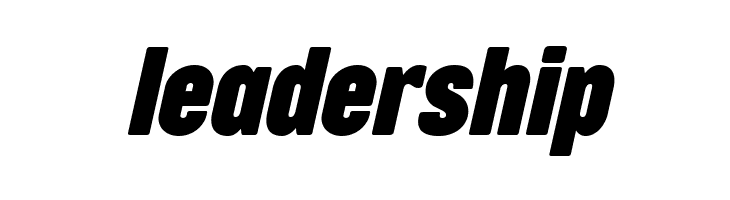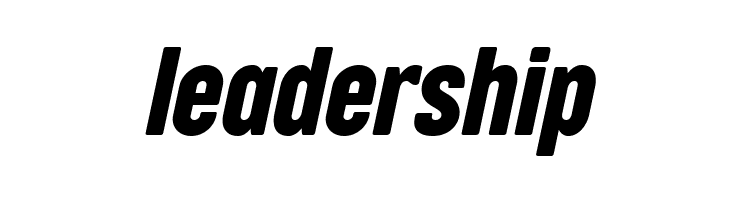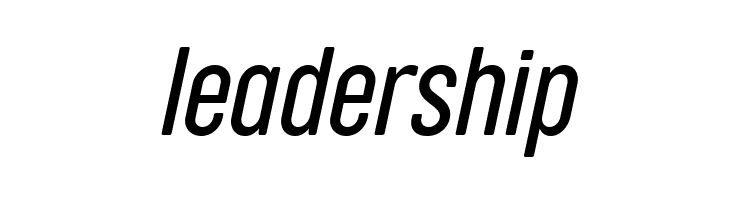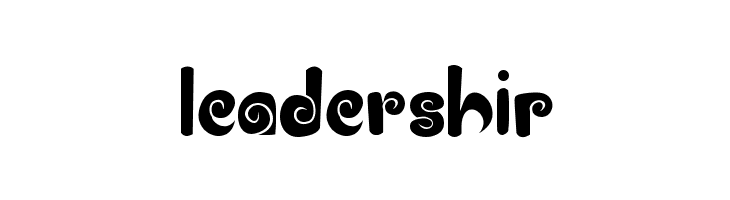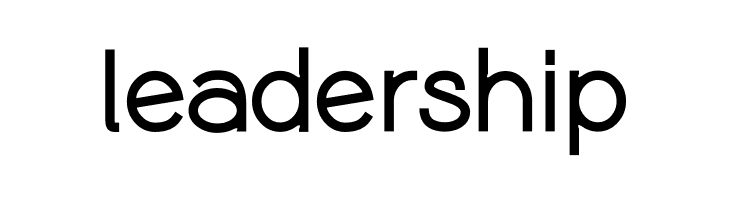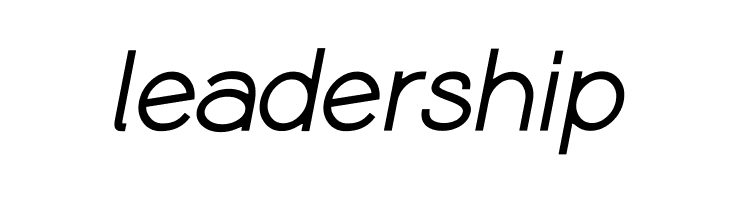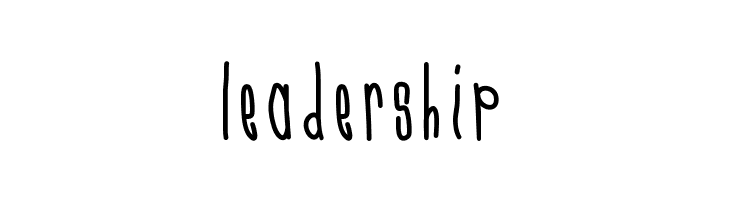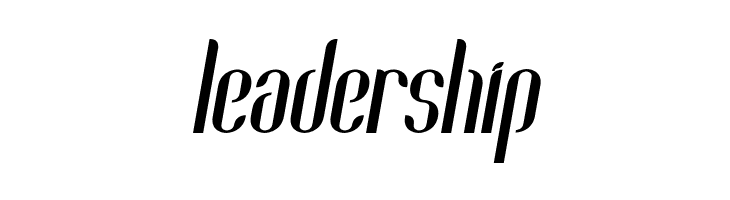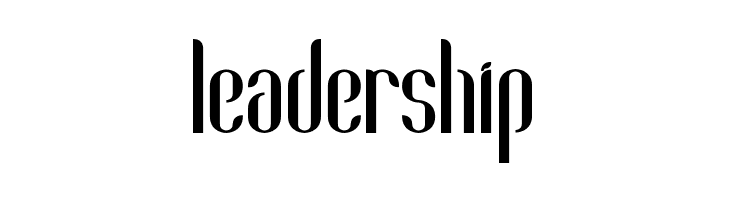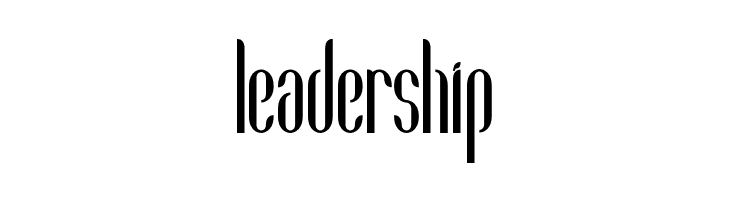
( weknow - Wino S Kadir - www.creativefabrica.com/designer/weknow/ ) A bold, italicized font with rounded, playful characters and dynamic slant. Download 79 Downloads@WebFont
( Fonts by billyargel.blogspot.com - Billy Argel ) A bold, geometric font with a strong, block-like design. Download 455 Downloads@WebFont
( Fonts by Billy Argel - www.billyargel.com - Personal-use only. For commercial use please contact owner. ) A bold, geometric font with a modern, industrial feel. Download 77 Downloads@WebFont
( Free for personal use ) A playful, hand-drawn font with tall, narrow letters and a whimsical style. Download 209 Downloads@WebFont
( Fonts by Donald E. Knuth - Personal-use only. For commercial use please contact owner. ) A bold serif typeface with strong serifs and consistent stroke width, offering a classic yet modern appeal. Download 469 Downloads@WebFont
( Fonts by Donald E. Knuth - Personal-use only. For commercial use please contact owner. ) A bold and italicized font with a dynamic and elegant style. Download 132 Downloads@WebFont
( Fonts by Donald E. Knuth - Personal-use only. For commercial use please contact owner. ) A bold, modern sans-serif typeface with clean lines and excellent legibility. Download 1012 Downloads@WebFont
( Fonts by Donald E. Knuth - Personal-use only. For commercial use please contact owner. ) A bold, oblique sans-serif font with a modern and dynamic style. Download 262 Downloads@WebFont
( Fonts by Donald E. Knuth - Personal-use only. For commercial use please contact owner. ) A bold serif typeface with a classic and authoritative style. Download 3231 Downloads@WebFont
( Fonts by Donald E. Knuth - Personal-use only. For commercial use please contact owner. ) A bold, italic serif font with a classic and elegant style. Download 410 Downloads@WebFont
( Fonts by Donald E. Knuth - Personal-use only. For commercial use please contact owner. ) A bold, slanted serif typeface with a classic and authoritative style. Download 150 Downloads@WebFont
( Fonts by Donald E. Knuth - Personal-use only. For commercial use please contact owner. ) A bold, monospaced typewriter-style font with a vintage aesthetic. Download 817 Downloads@WebFont
( Fonts by Donald E. Knuth - Personal-use only. For commercial use please contact owner. ) A bold, italicized typewriter-style font with monospaced characters. Download 115 Downloads@WebFont
( Fonts by Jef Triforce - Francisco Arellano - Personal-use only. For commercial use please contact owner. ) A modern, geometric sans-serif font with clean lines and uniform strokes. Download 51 Downloads@WebFont
( Jef Triforce - Francisco Arellano - www.ixipcalli.com ) A modern, geometric sans-serif font with bold, clean lines. Download 330 Downloads@WebFont
( Fonts by Jef Triforce - Francisco Arellano - Personal-use only. For commercial use please contact owner. ) A bold, italicized font with a modern and sleek design. Download 30 Downloads@WebFont
( Jef Triforce - Francisco Arellano - www.ixipcalli.com ) A modern, bold italic sans-serif font with a sleek and dynamic style. Download 92 Downloads@WebFont
( Fonts by Jef Triforce - Francisco Arellano - Personal-use only. For commercial use please contact owner. ) A modern, geometric typeface with bold, uniform strokes and clean lines. Download 63 Downloads@WebFont
( Fonts by Jef Triforce - Francisco Arellano - Personal-use only. For commercial use please contact owner. ) A modern, bold, and italic font with a sleek and dynamic appearance. Download 46 Downloads@WebFont
( Fonts by Manfred Klein. Free for private and charity use. Free for commercial with donation to organizations ) A bold, classic serif font with thick strokes and elegant curves. Download 854 Downloads@WebFont
( Zetafonts - www.zetafonts.com ) A bold, modern sans-serif font with clean lines and geometric shapes. Download 552 Downloads@WebFont
( Zetafonts - www.zetafonts.com ) A bold, italicized, and modern font with a geometric design. Download 95 Downloads@WebFont
( Fonts by Figuree Studio ) A bold, decorative font with playful swirls and curves. Download 124 Downloads@WebFont
( Zetafonts - www.zetafonts.com ) A bold, compressed font ideal for impactful headlines. Download 2131 Downloads@WebFont
( Fonts by Zetafonts - Personal-use only. For commercial use please contact owner. ) A bold, italic, and compressed font with a modern and dynamic style. Download 311 Downloads@WebFont
( Fonts by Zetafonts - Personal-use only. For commercial use please contact owner. ) A bold, compressed, and italicized font with a modern and dynamic style. Download 448 Downloads@WebFont
( Zetafonts - www.zetafonts.com ) A bold, distressed font with a vintage letterpress style. Download 123 Downloads@WebFont
( Zetafonts - www.zetafonts.com ) A modern, compressed font with a sleek and uniform design. Download 2108 Downloads@WebFont